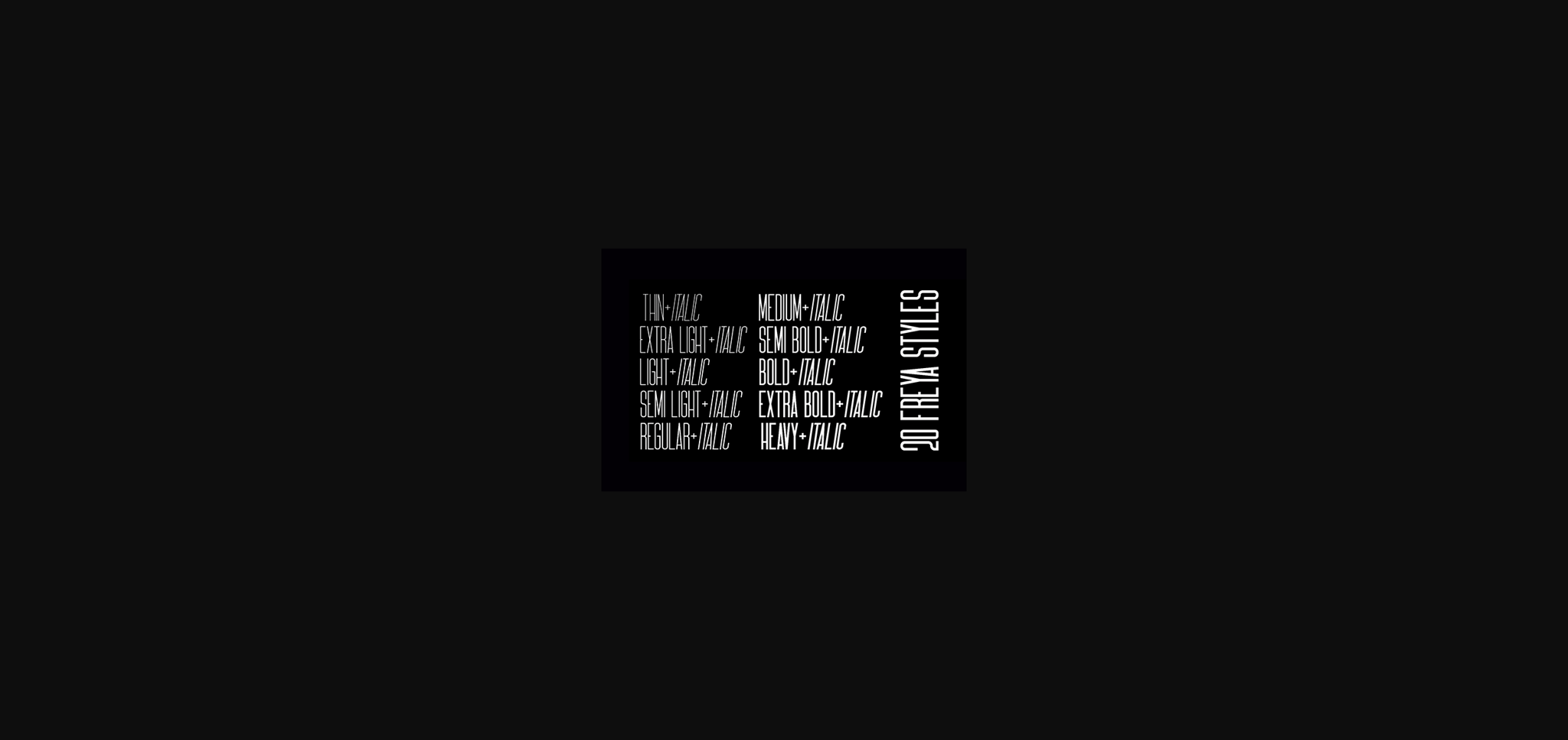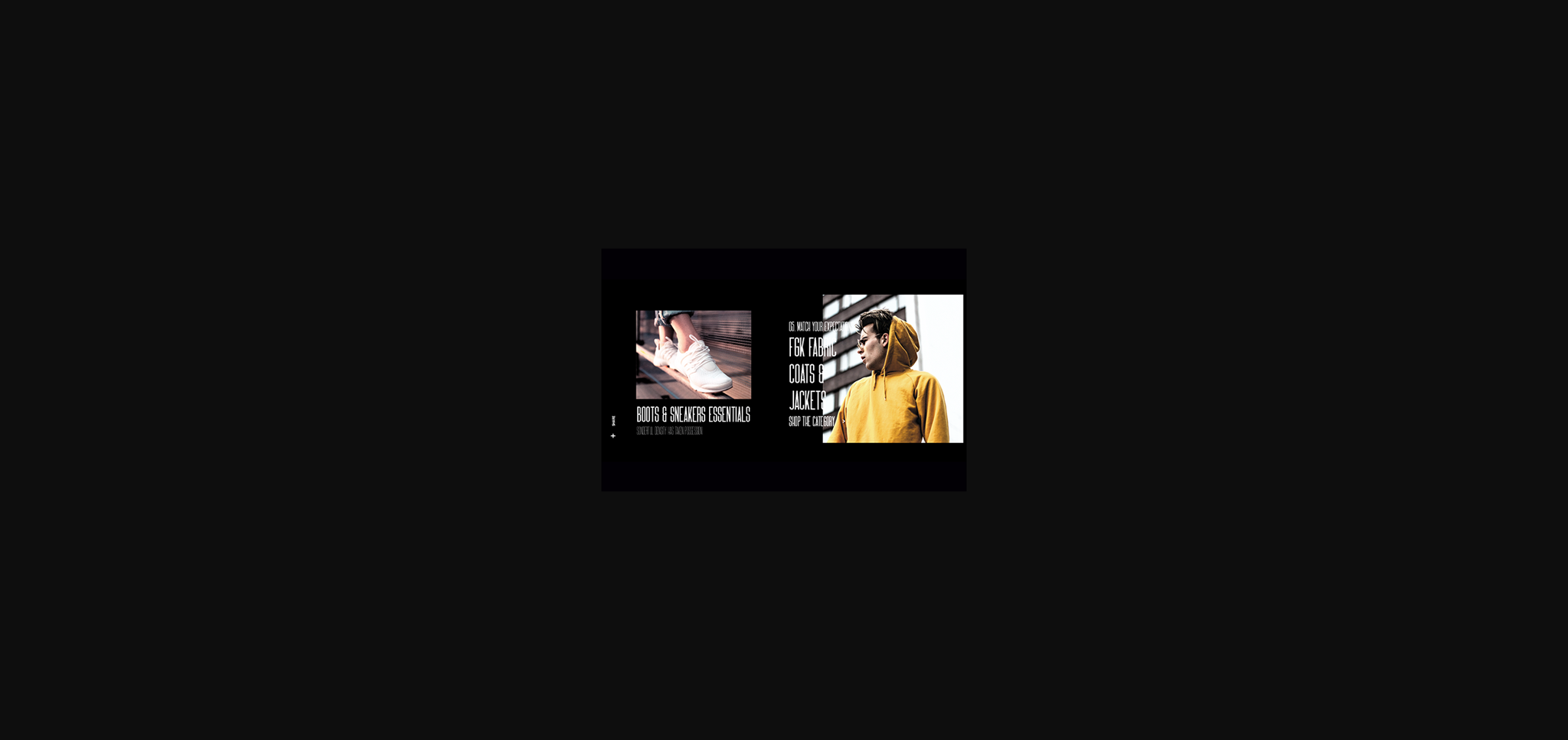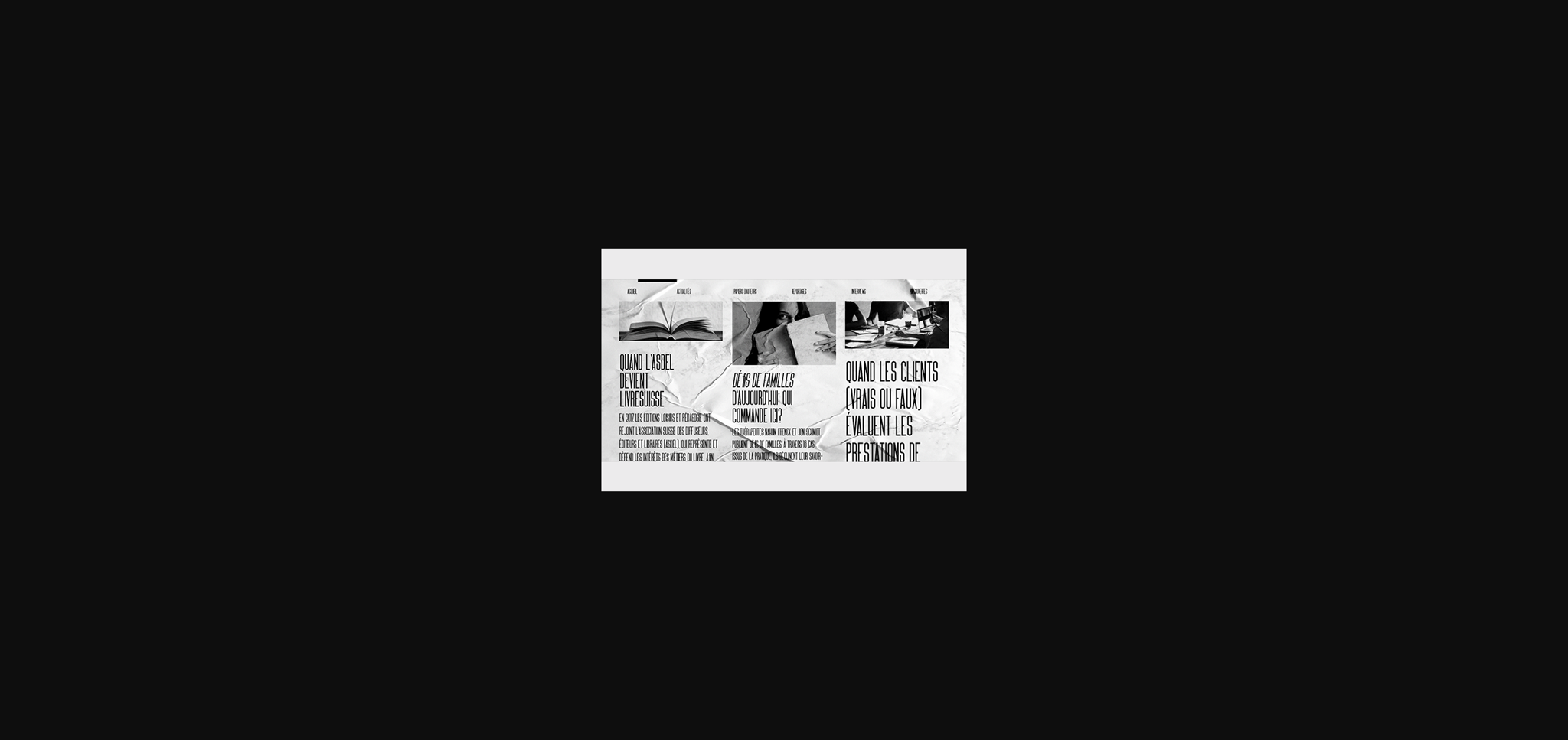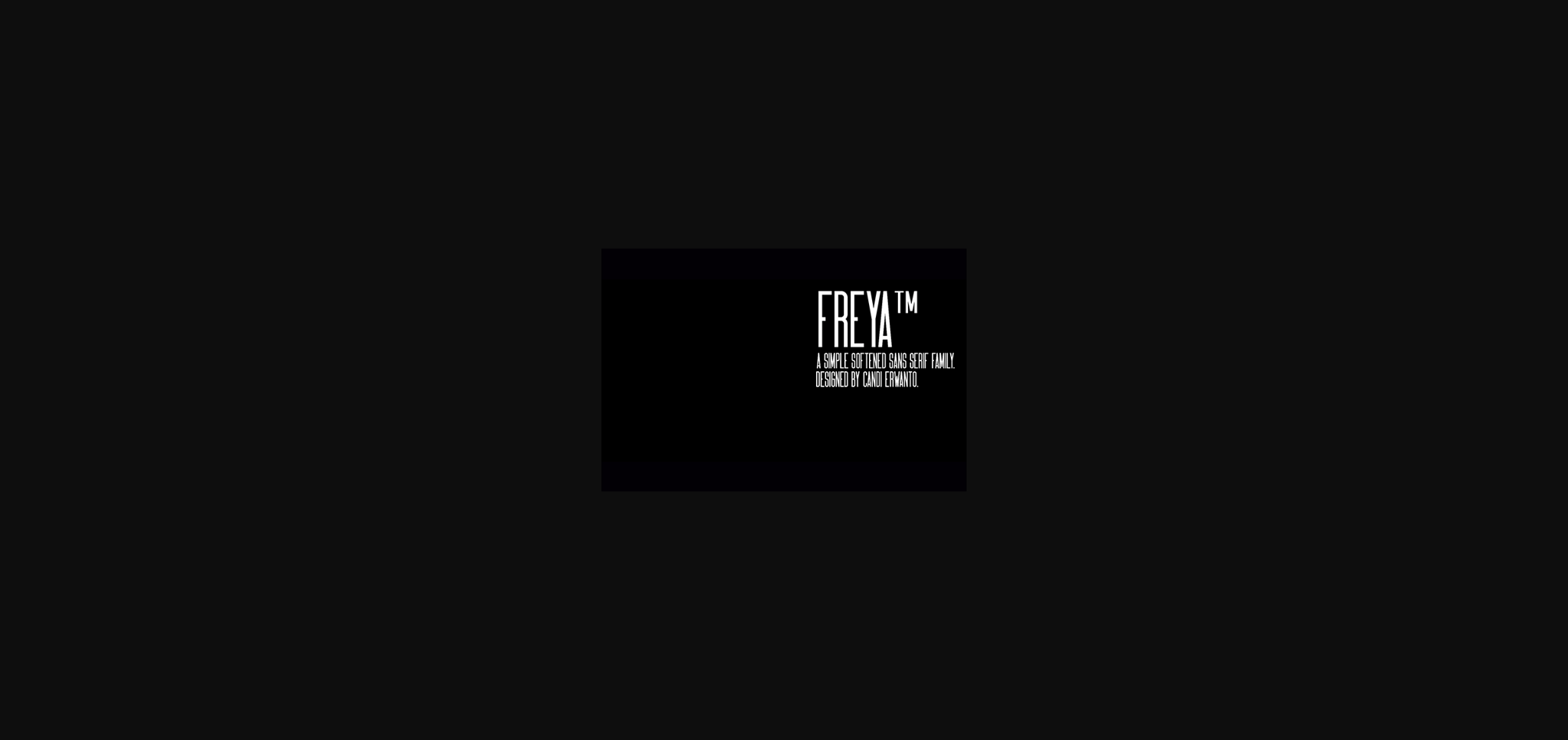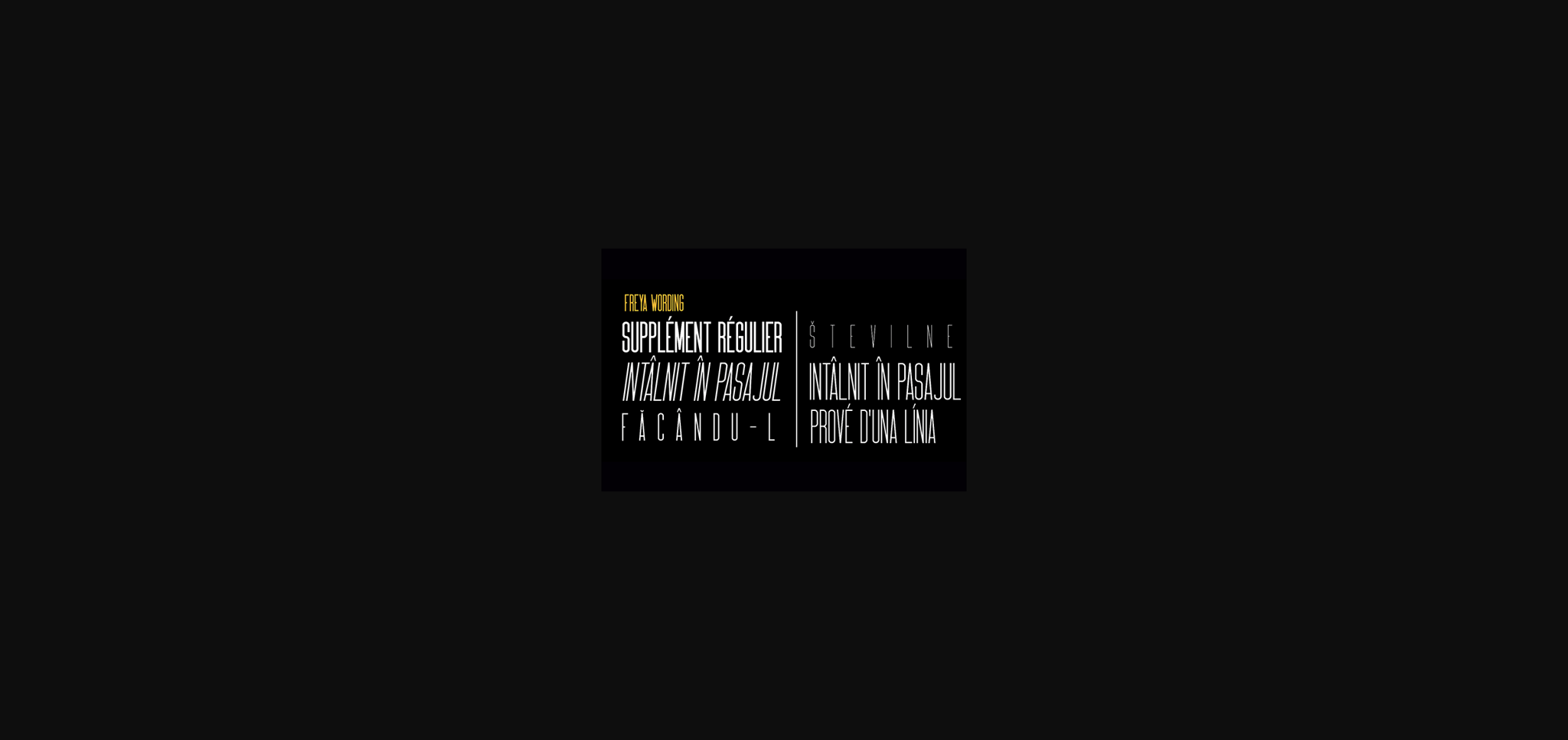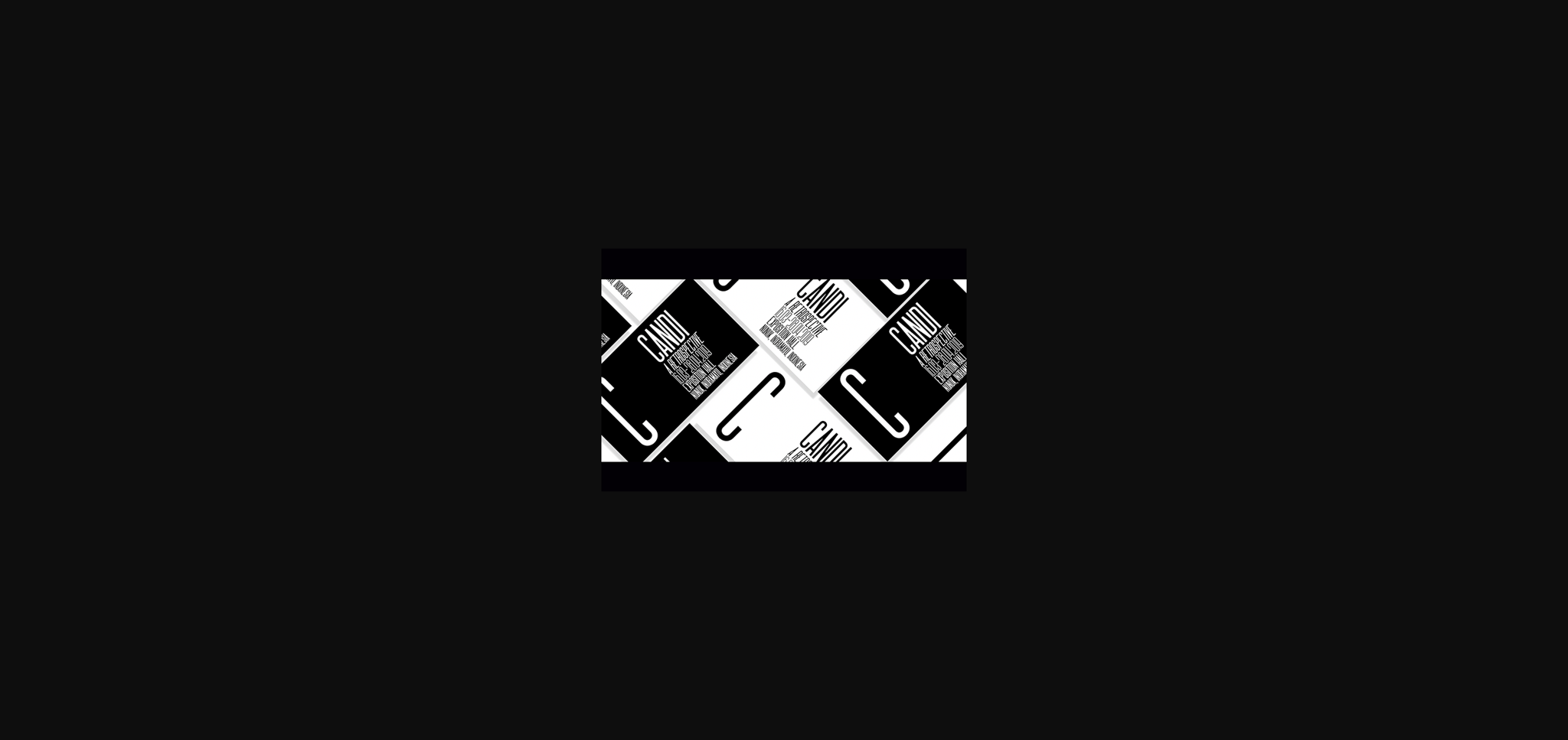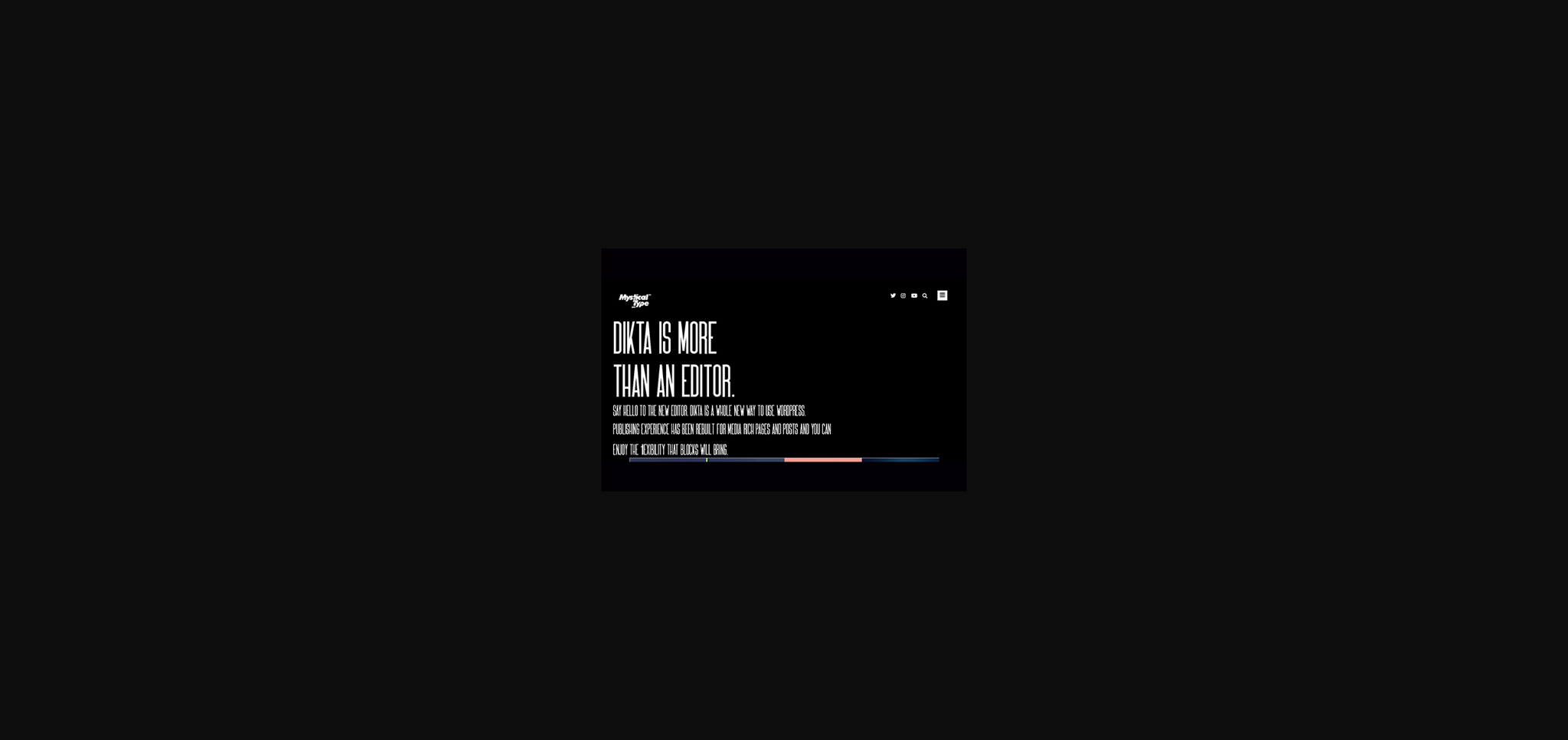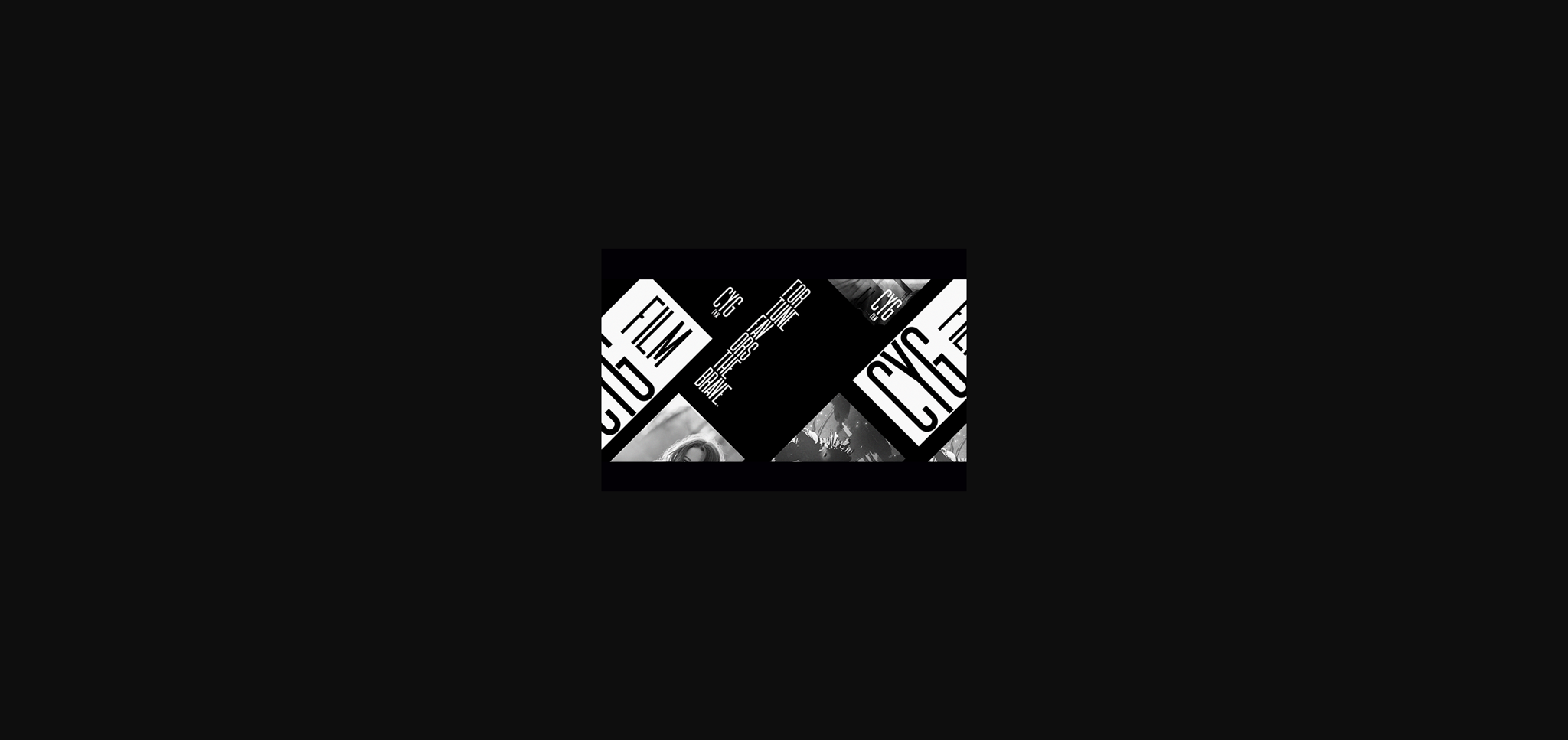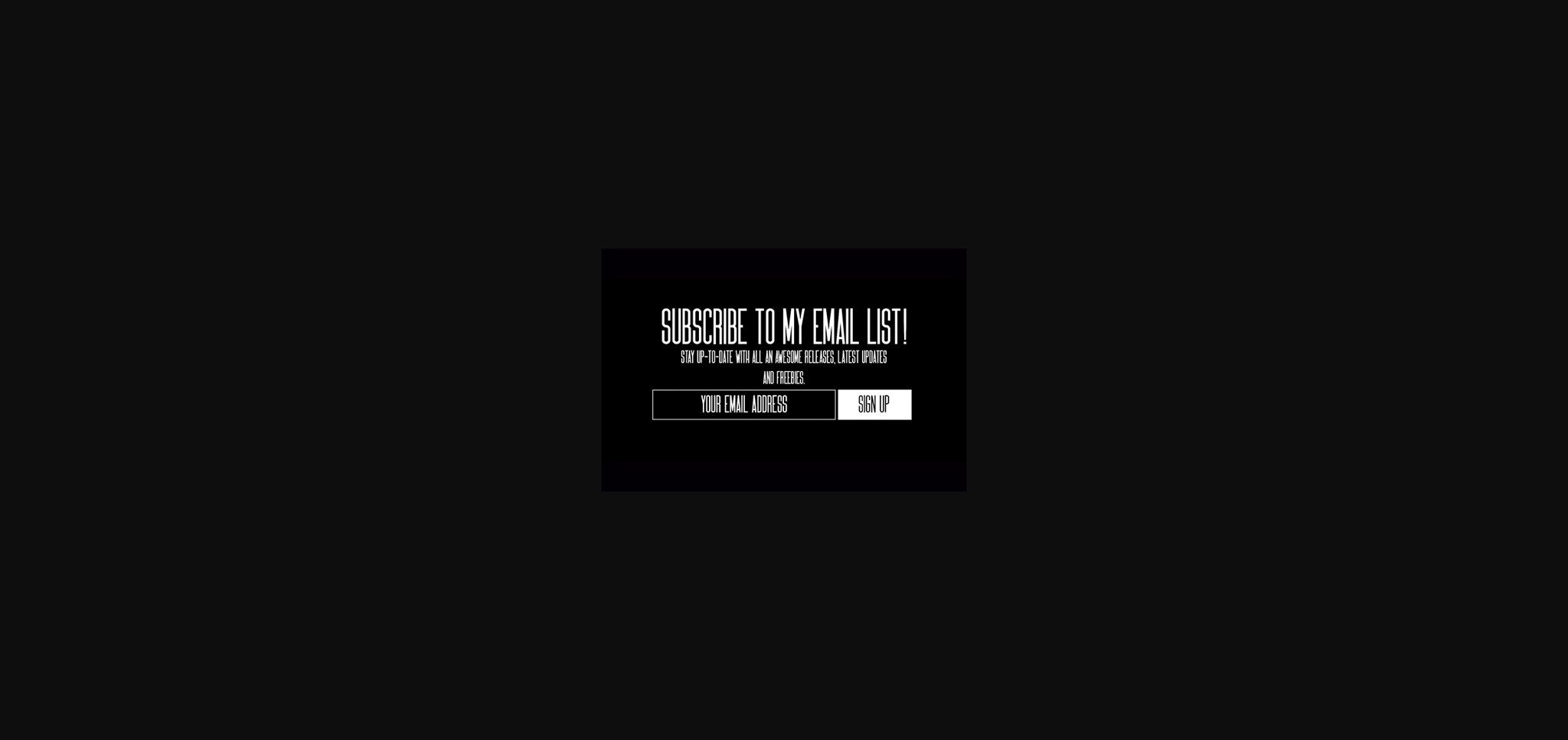
HomeSans Serif FontsFreya Font Sans Serif Fonts Freya Font FacebookXPinterestWhatsApp 1 of 11 ... Freya Font Poster 2... Freya Font Poster 3... Freya Font Poster 4... Freya Font Poster 5... Freya Font Poster 6... Freya Font Poster 7... Freya Font Poster 8... Freya Font Poster 9... Freya Font Poster 10... Freya Font Poster 11... About Freya Font Freya is a strong font family and sophisticated sans serif. With its neat and beautiful arrangement of letters, this typeface will look outstanding in both formal and non-formal designs. DOWNLOAD NOW People also explored Christmas Holland Font Amellya Script Font Deffego Font Baby Girl Font Rutter Font Acknesia Font Naomi Font Terpentijn Sister Font 358 0 TagsFreyaFreya Font Previous articleRolf FontNext articleBalibold Font LEAVE A REPLY Cancel reply Comment: Please enter your comment! Name:* Please enter your name here Email:* You have entered an incorrect email address! Please enter your email address here Website: Save my name, email, and website in this browser for the next time I comment. Personal Use Free Avagan Personal Use Free Read more about this font Panaroe Personal Use Free Read more about this font Manhattan Personal Use Free Read more about this font Loving Personal Use Free Read more about this font BLOG How to Install and Use Fonts on Windows, macOS, and Web Projects How to Install and Use Fonts on Windows, macOS, and Web Projects Fonts are a crucial part of design and branding. Whether you’re designing a... Best Fonts for YouTube Videos: Make Your Thumbnails Stand Out Best Fonts for T-Shirt Design – Top 2025 Picks To increase your work productivity, choose the most readable fonts.